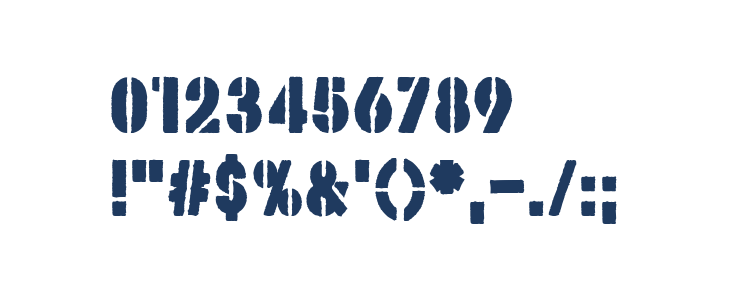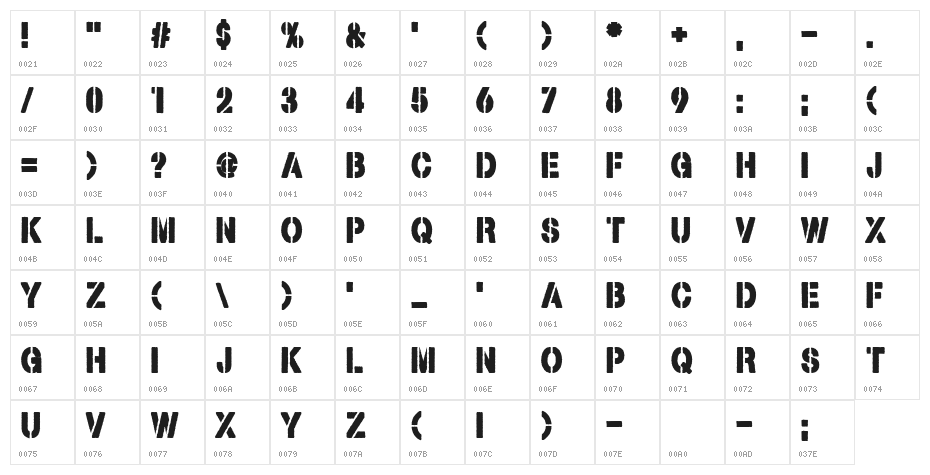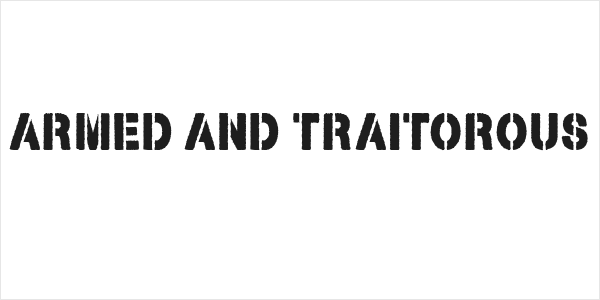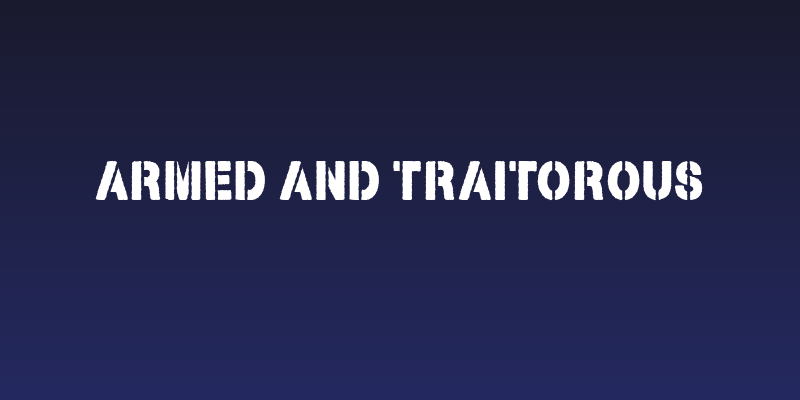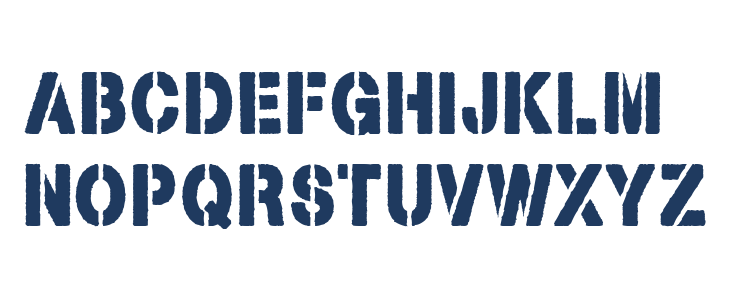
Armed and Traitorous Font
Armed and Traitorous Description
This font features a bold, stencil-like design with a rugged, military-inspired aesthetic. The characters are blocky and robust, with distinct gaps that mimic the look of spray-painted stencils. This style gives it a utilitarian and industrial feel, reminiscent of markings on crates or machinery. The uppercase letters are uniform in height, while the numbers and special characters maintain the same bold and impactful presence. The font's design is straightforward yet striking, making it suitable for projects that require a strong, authoritative visual impact.
| Overall Style | Industrial, Military |